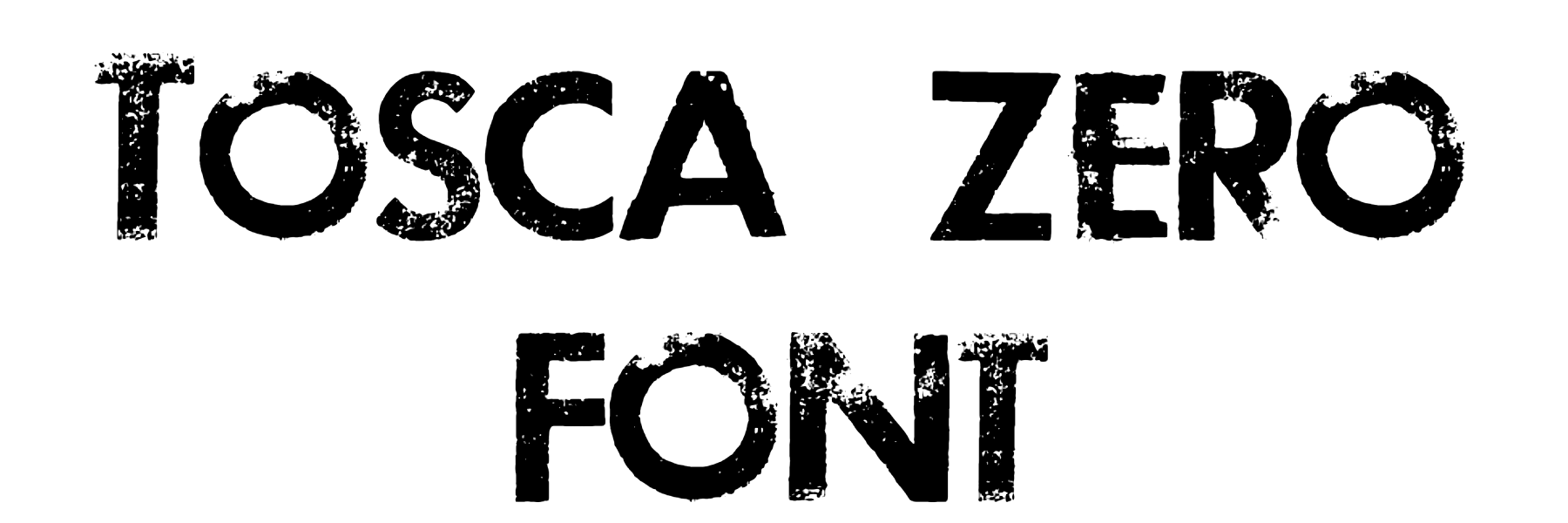
Tosca zero
Tosca zero is a horror font created by Billy Argel (2009). It looks like it belongs on a horror film poster, with shapes meant to make people a little uneasy. You can download it for free and test it with your own words in the preview above.
- Category: Horror font
What You Can Type With Tosca zero
With complete upper and lowercase letters and all ten digits, Tosca zero is ready for real wording, not just a single headline. Punctuation is limited, so look at the character map if you need a specific symbol. Thanks to its accented letters, it also works for Spanish, French, Portuguese and Italian, not just English.
Where Tosca zero Works Best
Think of Tosca zero for Halloween flyers, horror movie titles and game covers. Its lowercase letters are tall compared to the capitals, which keeps it readable at smaller sizes. The file has no kerning data, so in logos and big titles check pairs like AV, To and Wa and tighten the spacing by hand. Horror fonts hit hardest on dark backgrounds with plenty of empty space around the title.
Does Tosca zero support accented letters?
Yes. Tosca zero includes the accented letters needed for Spanish, French, Portuguese and Italian, so it works for more than just English.
What fonts pair well with Tosca zero?
Use a plain, narrow sans serif for credits or details so the title does all the scaring.